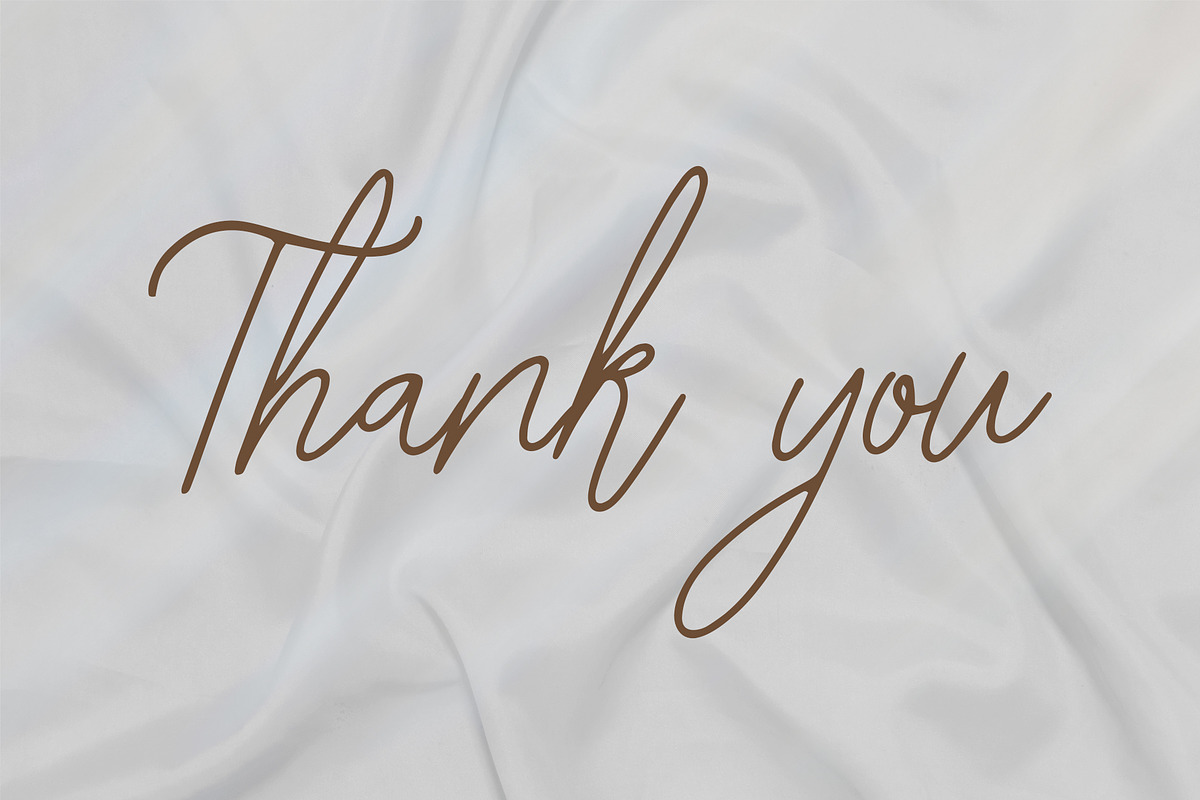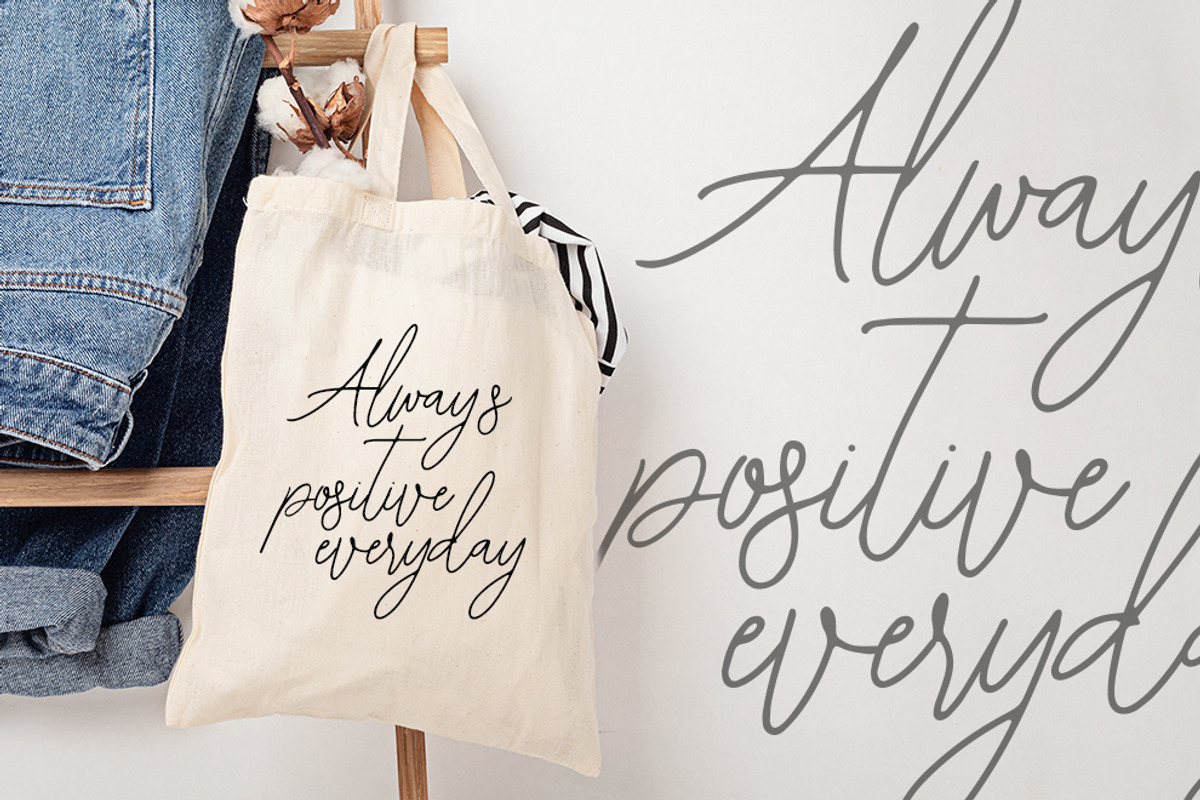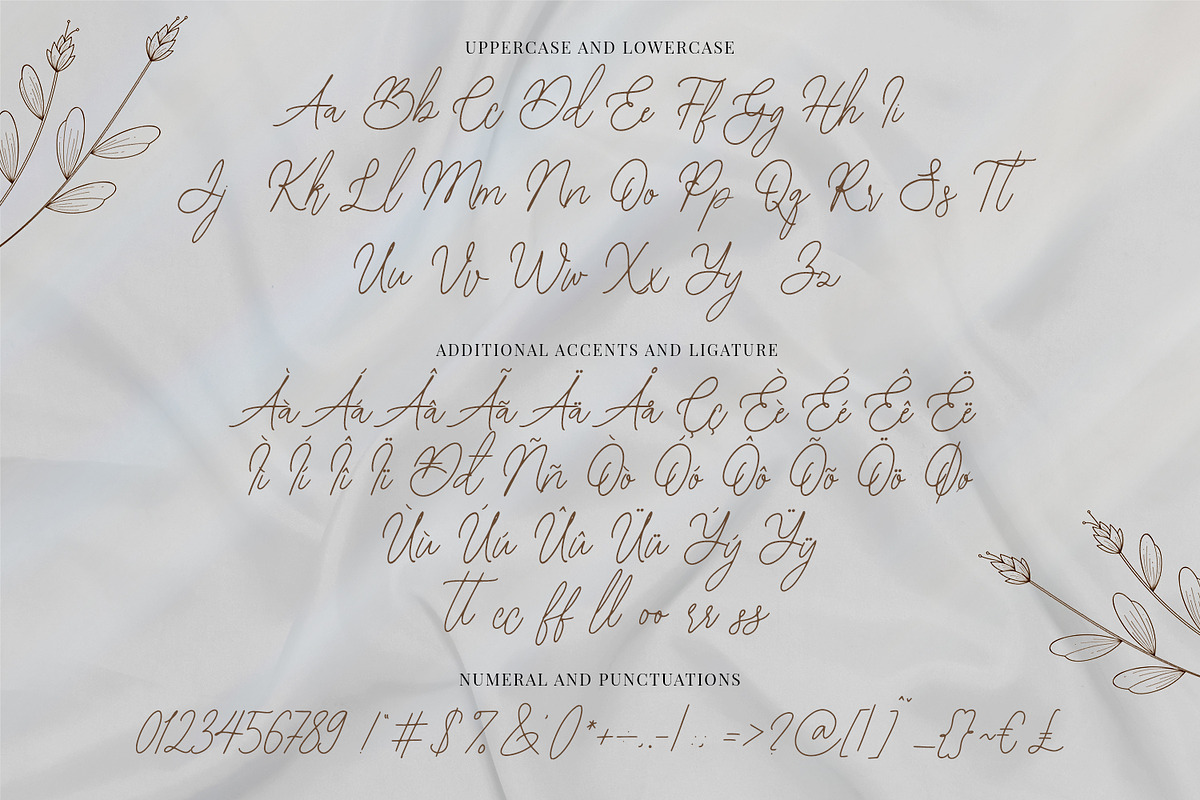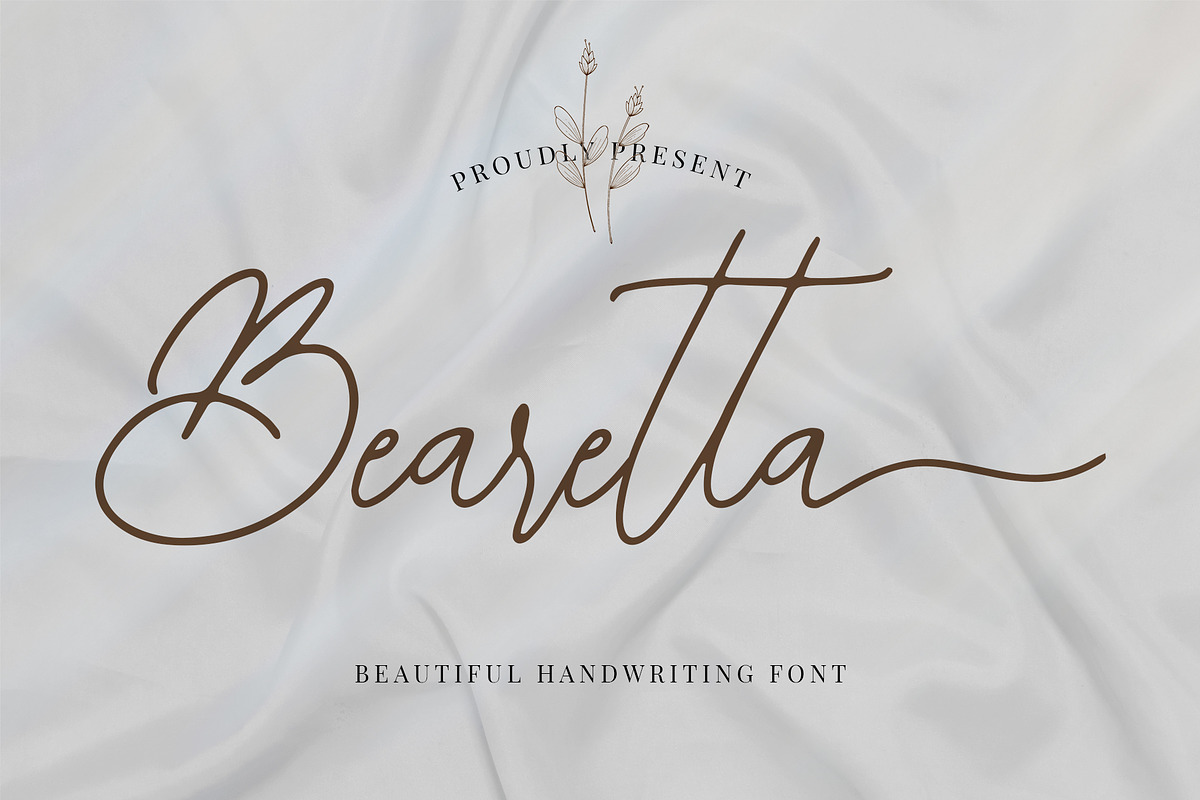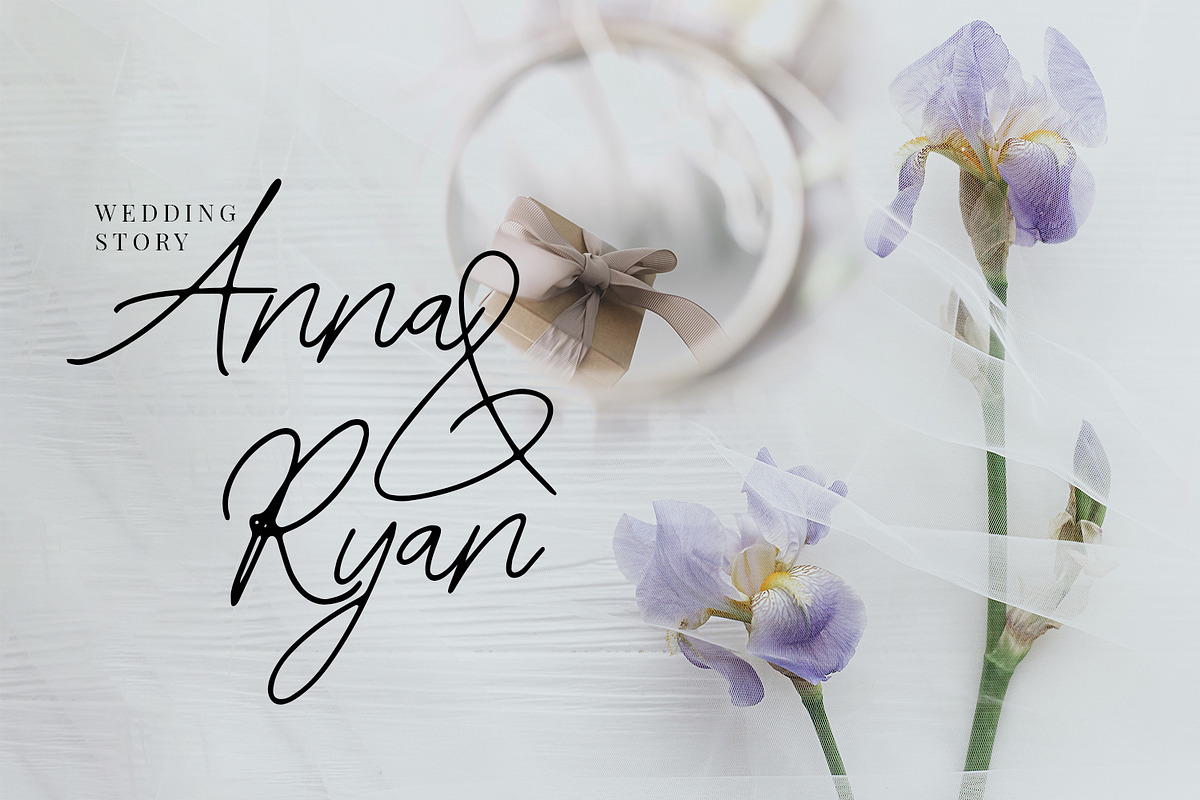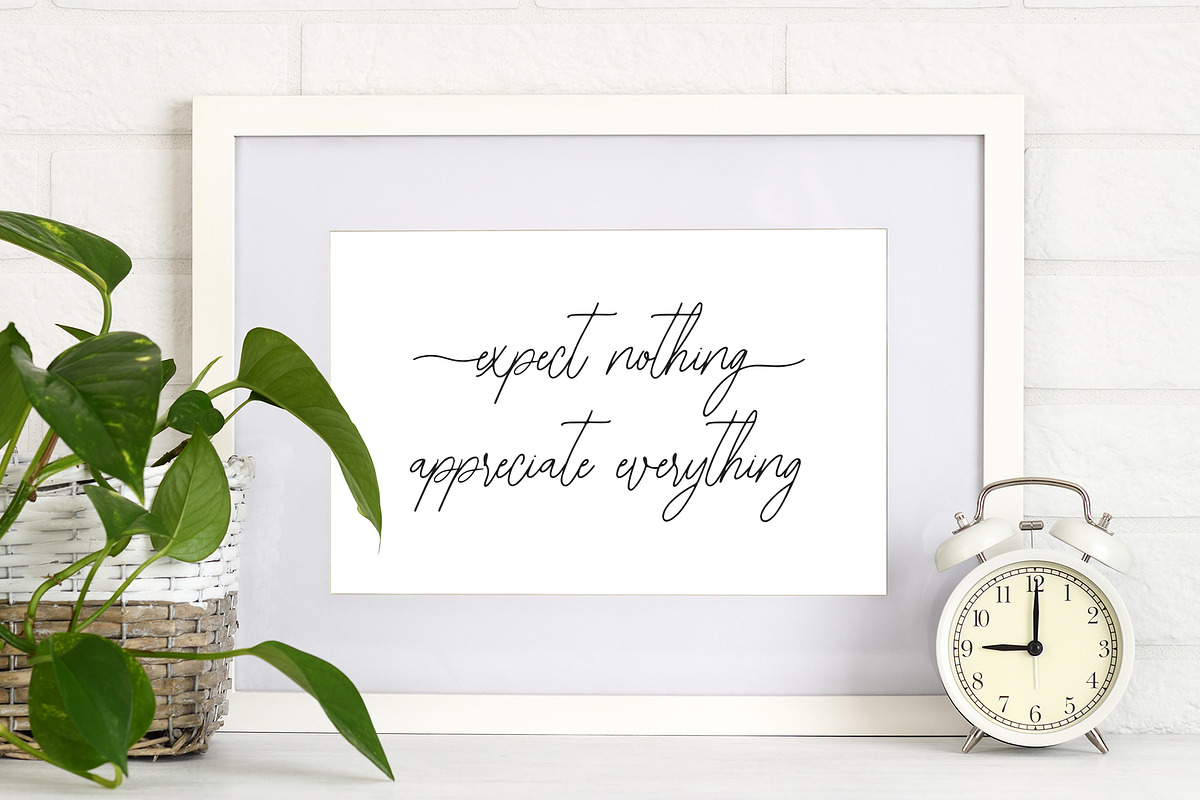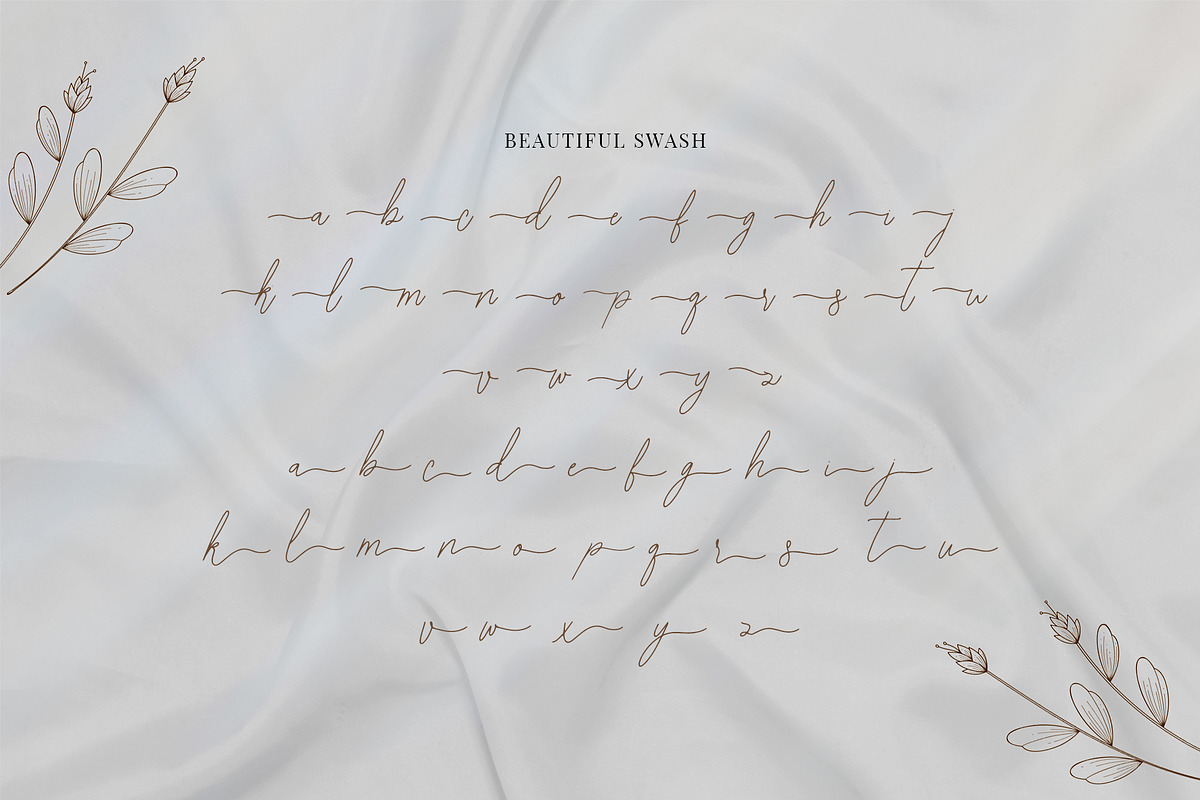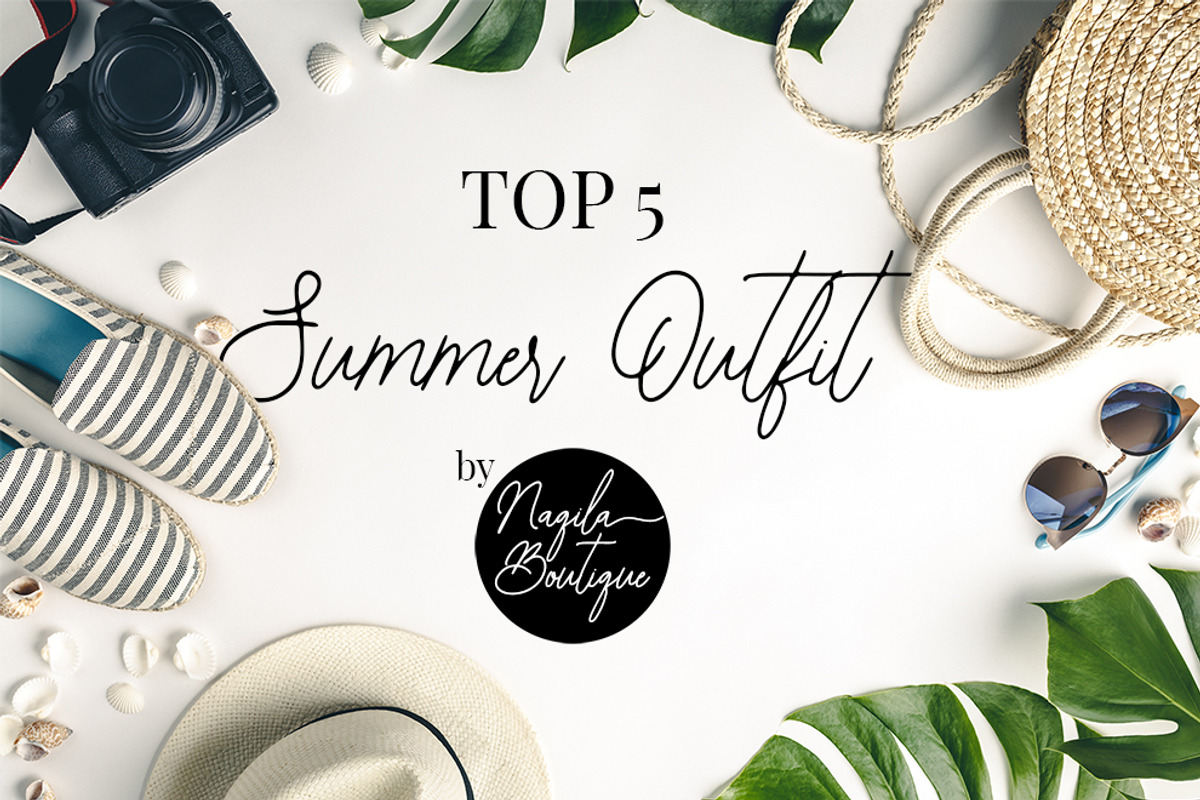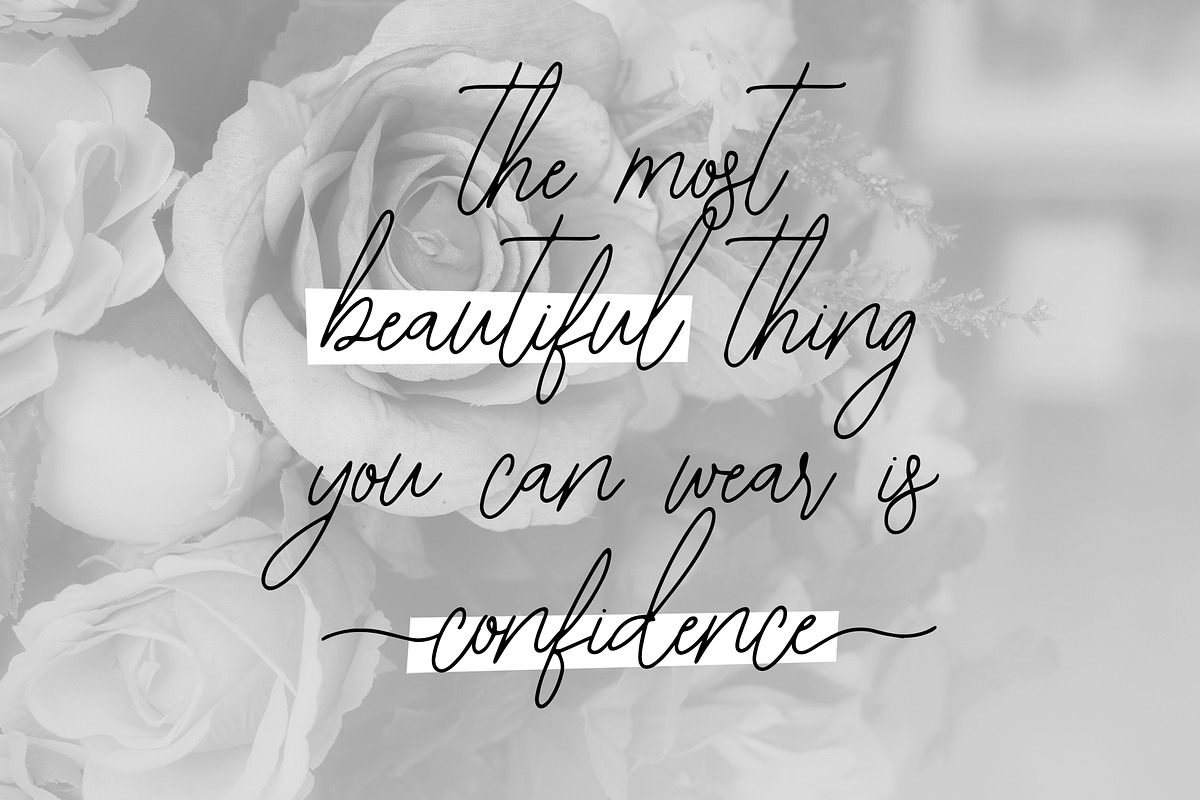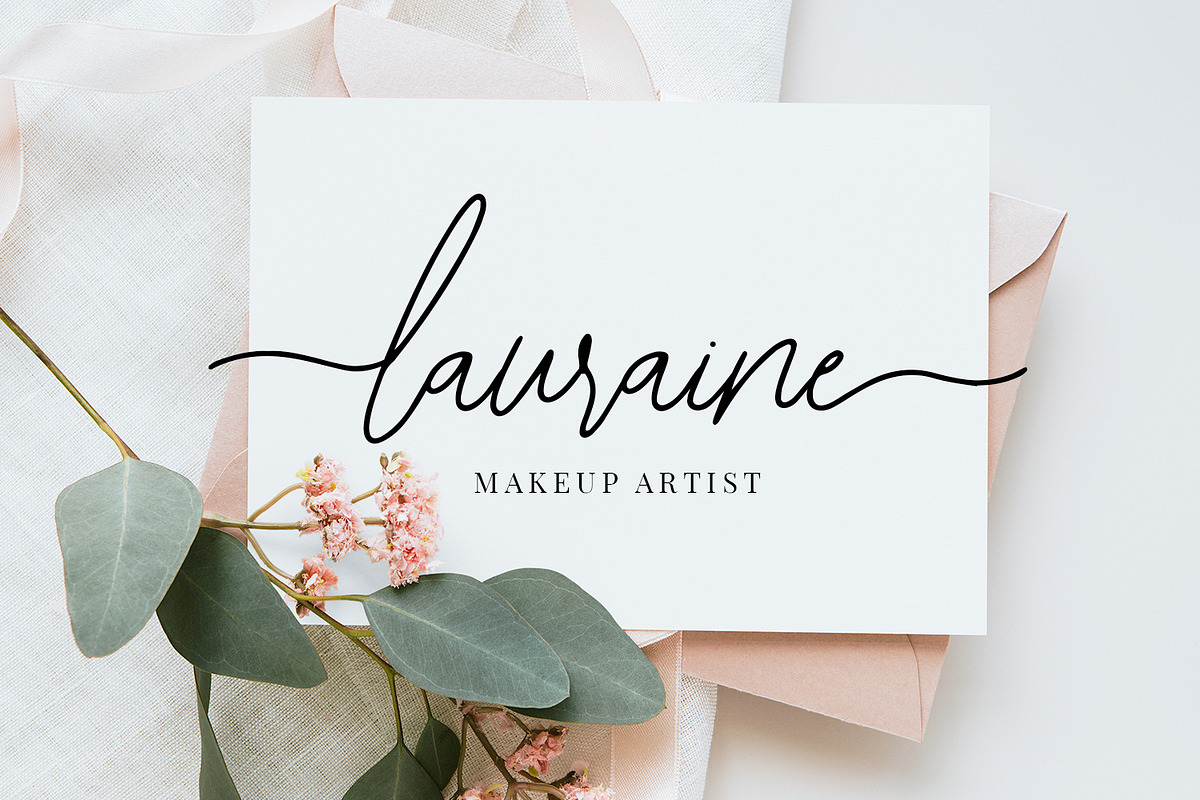
Bearetta - Beautiful Handwriting
Introducing Bearetta - Authentic Handwritten Ligature Script is a Quality script that is written casually and quickly has many alternative letters, with a front and back tail that adds to a more attractive appearance.
Bearetta is perfect for homeware designs,branding projects, Logo, design, Quotes, Product packaging, Photography, Watermark
- Alternate glyphs